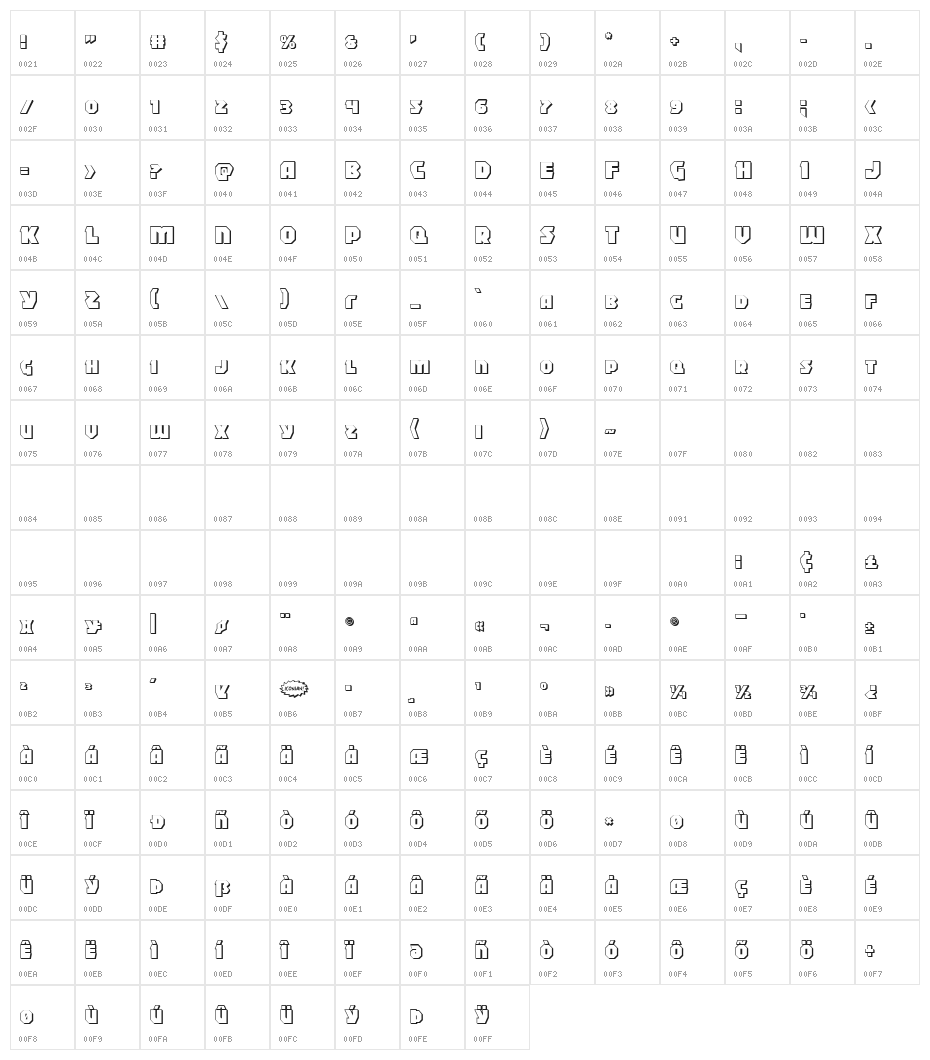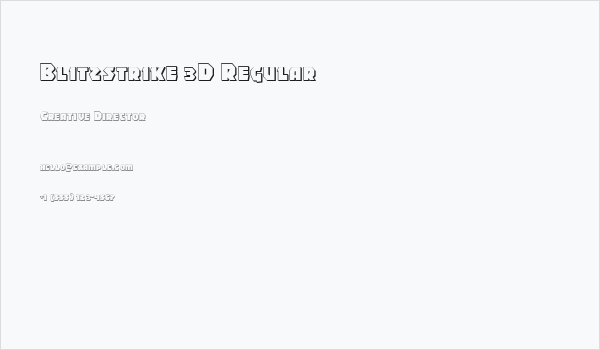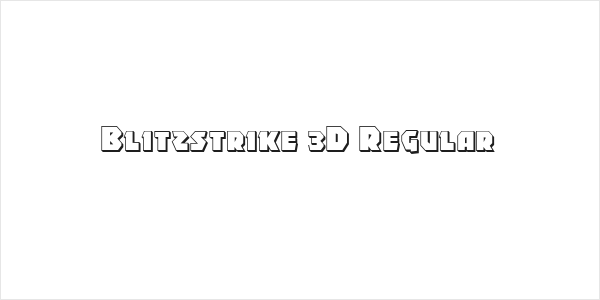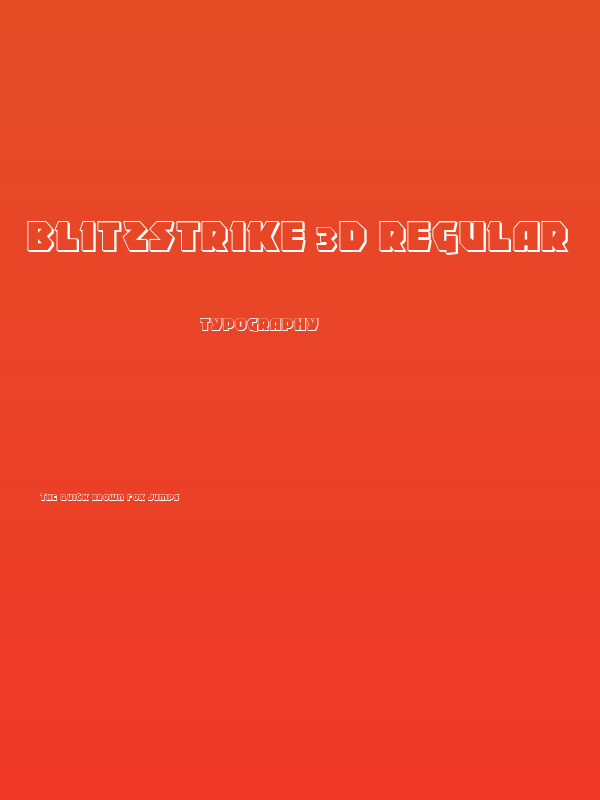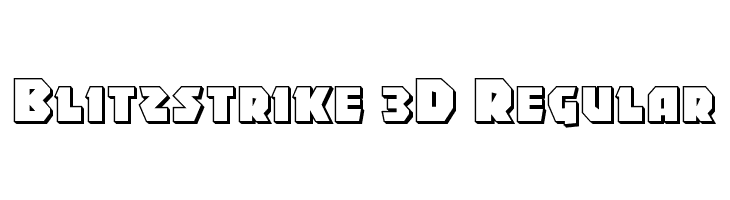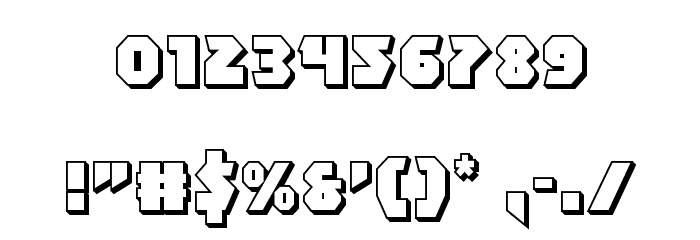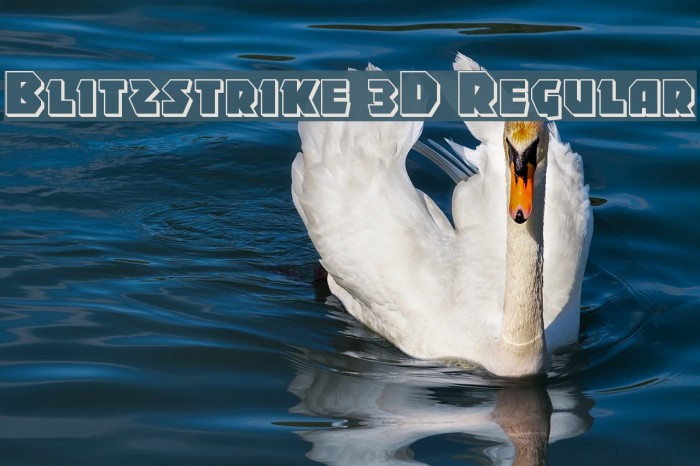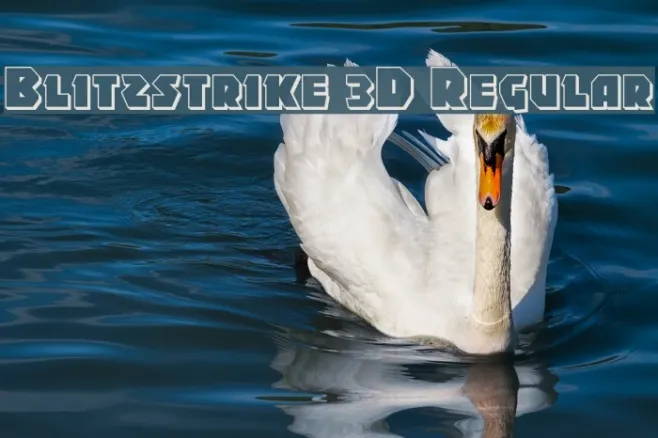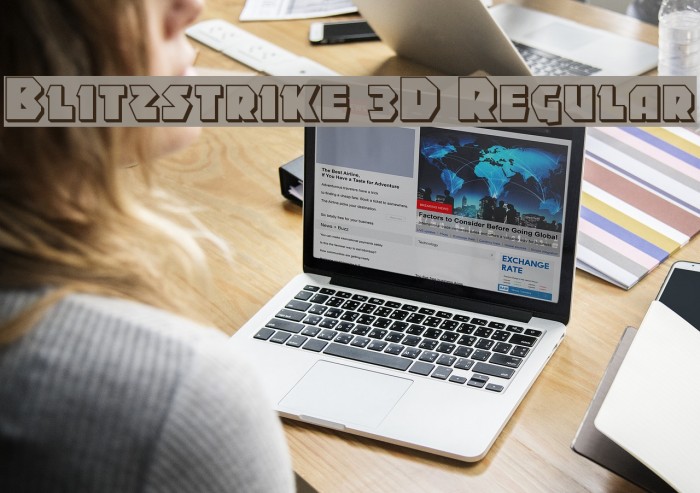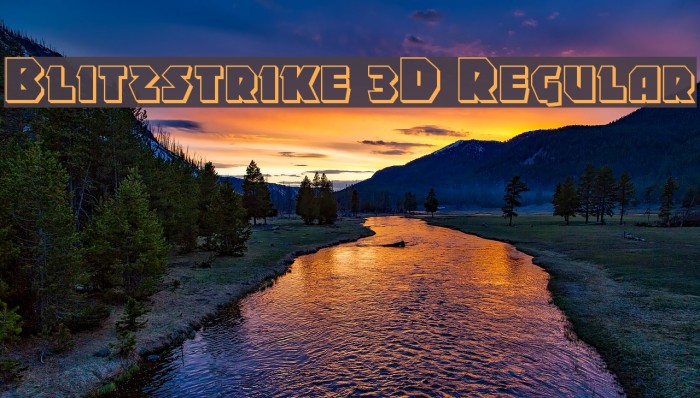
Blitzstrike 3D Regular Font
Blitzstrike 3D Regular Description
This font features a bold, three-dimensional design that gives each character a striking, blocky appearance. The letters are capitalized and exhibit a strong geometric form, with sharp angles and a solid structure. The 3D effect is achieved through a shadow-like outline that adds depth and dimension. The numbers and special characters maintain this consistent style, ensuring a cohesive look across all elements. This font is perfect for making a bold statement and is particularly suited for designs that require a modern and impactful aesthetic.